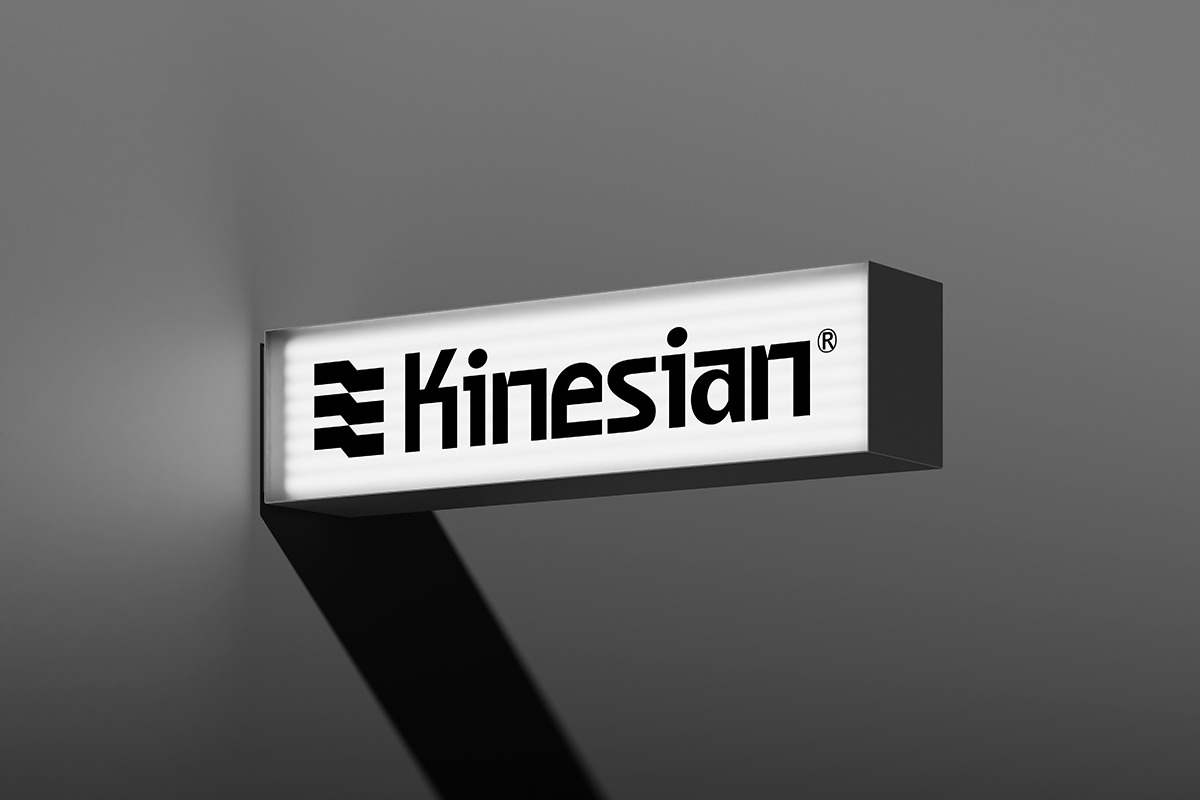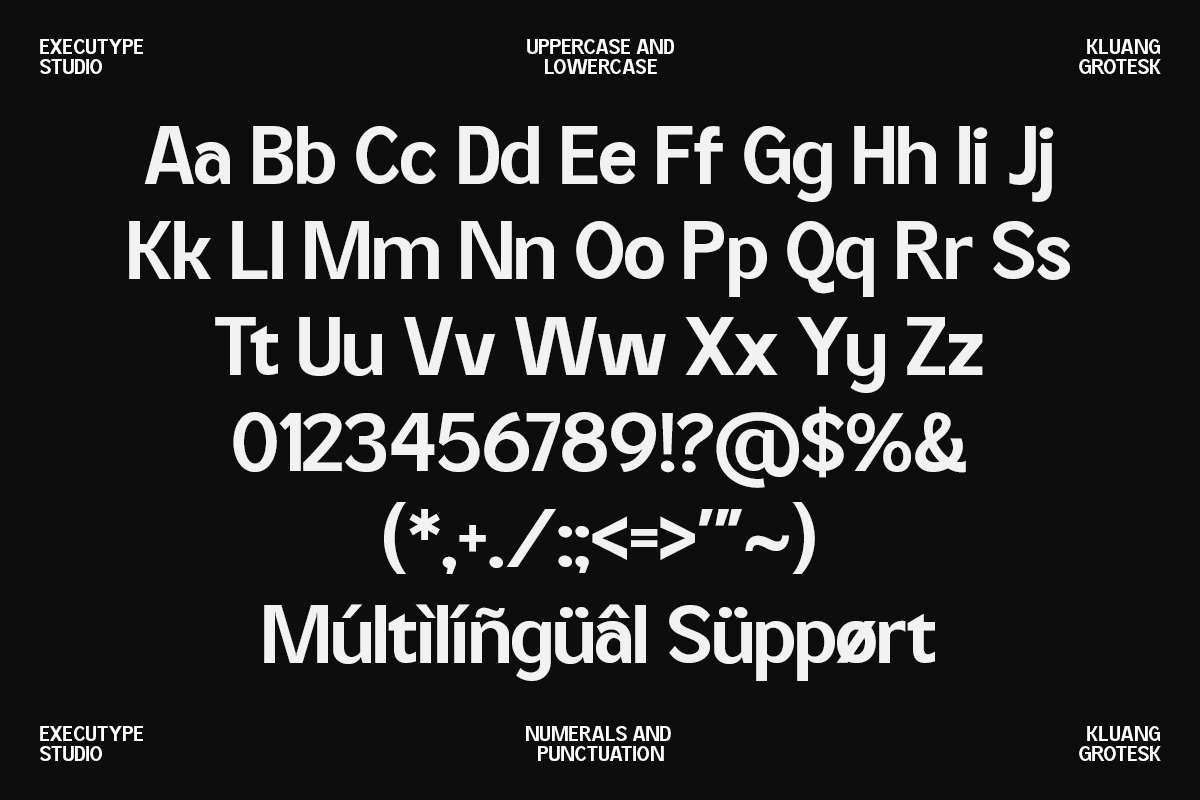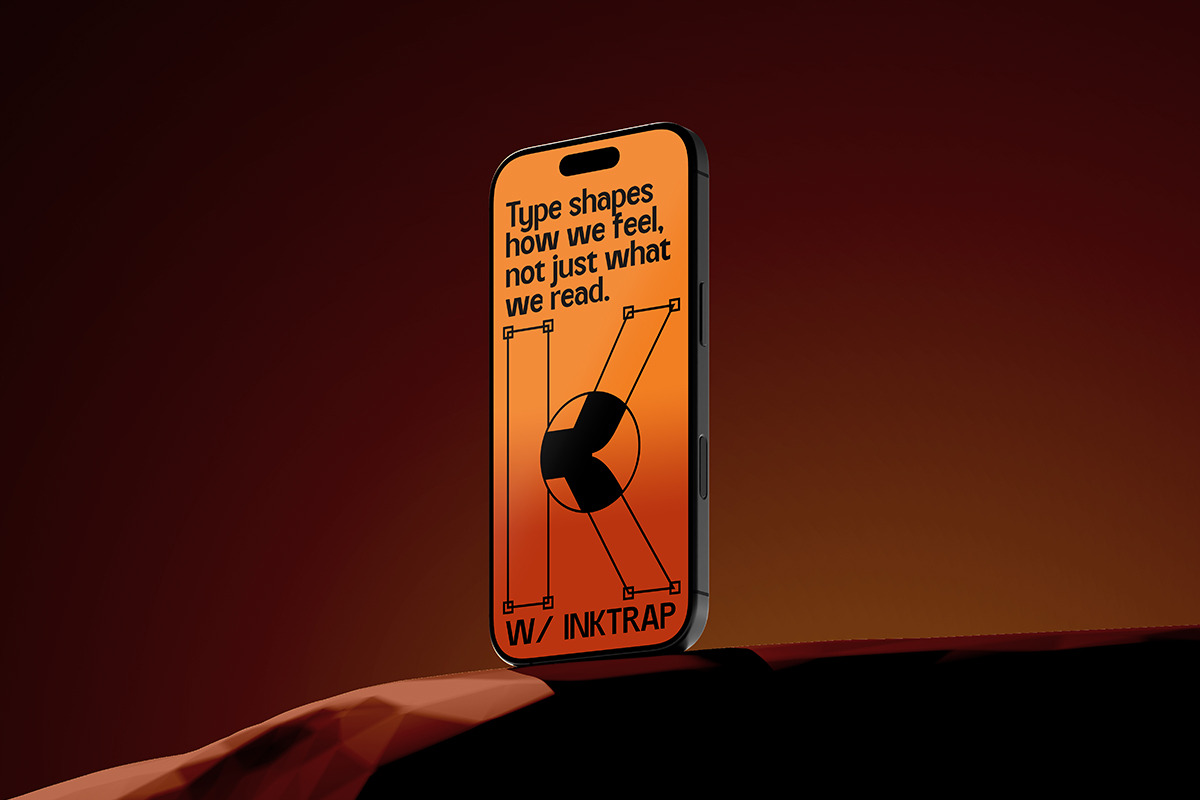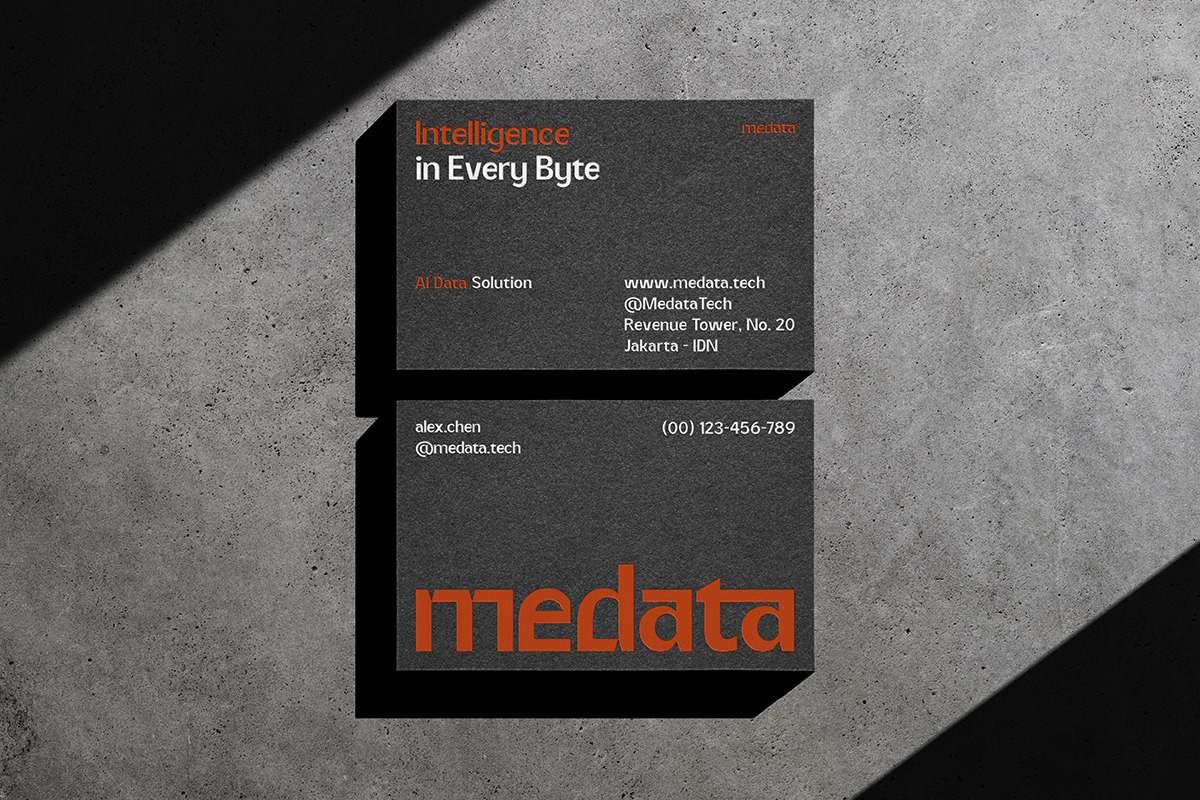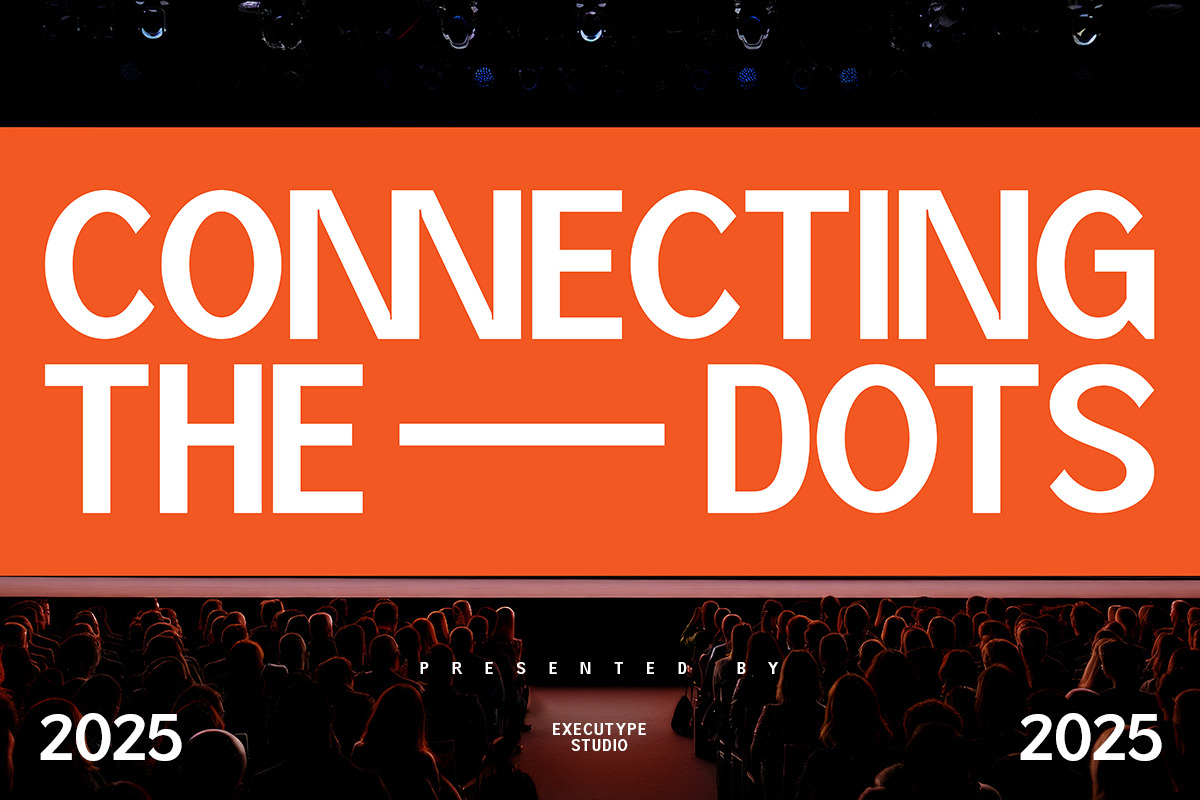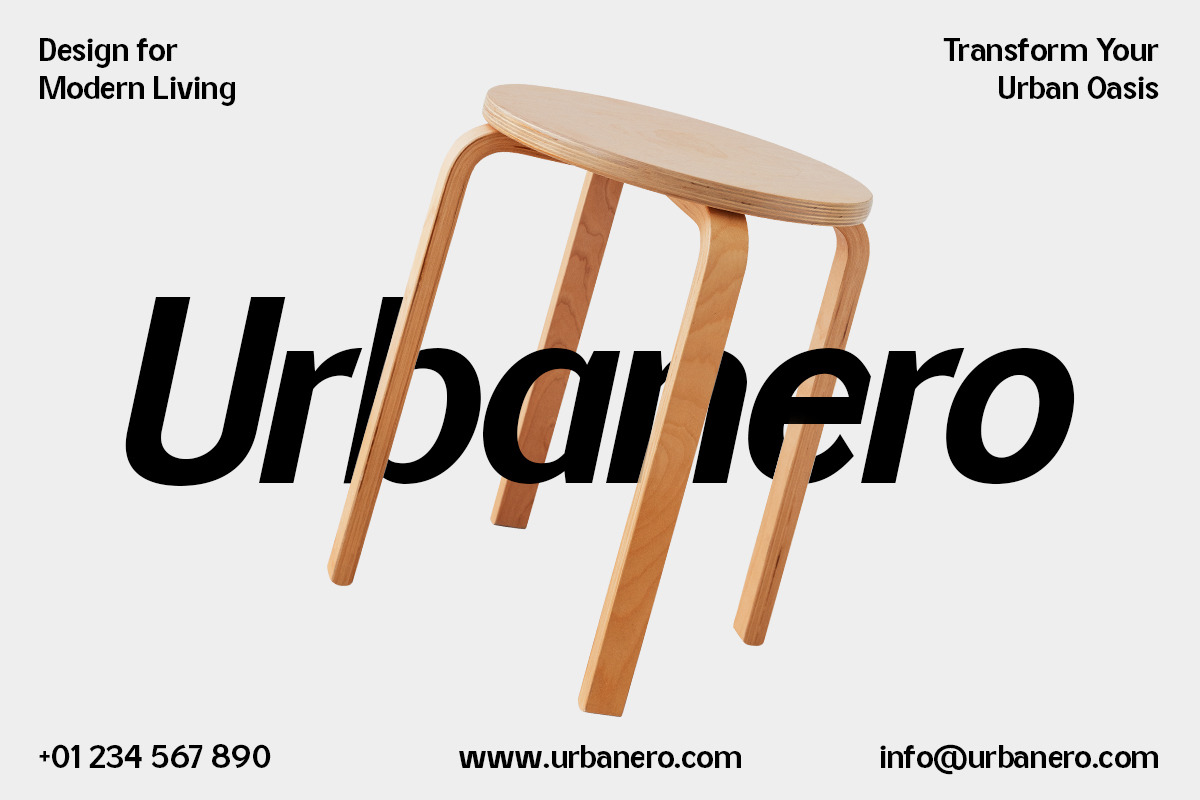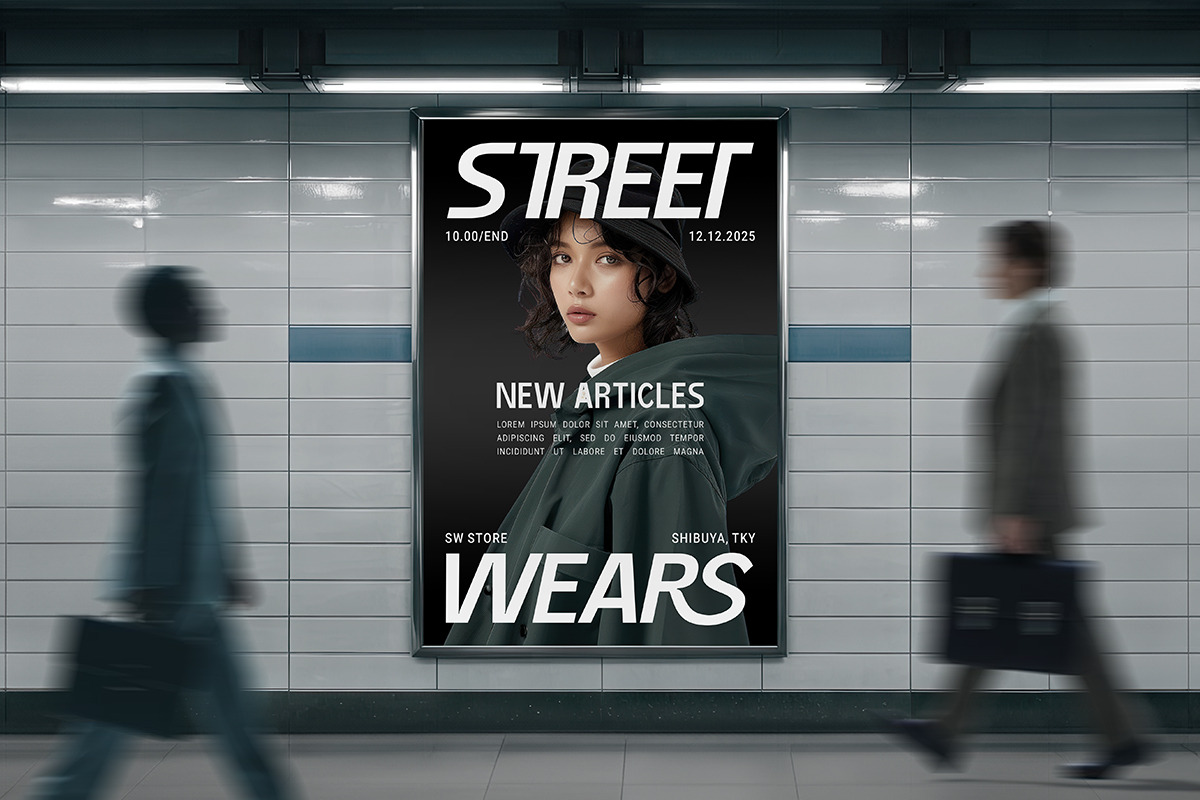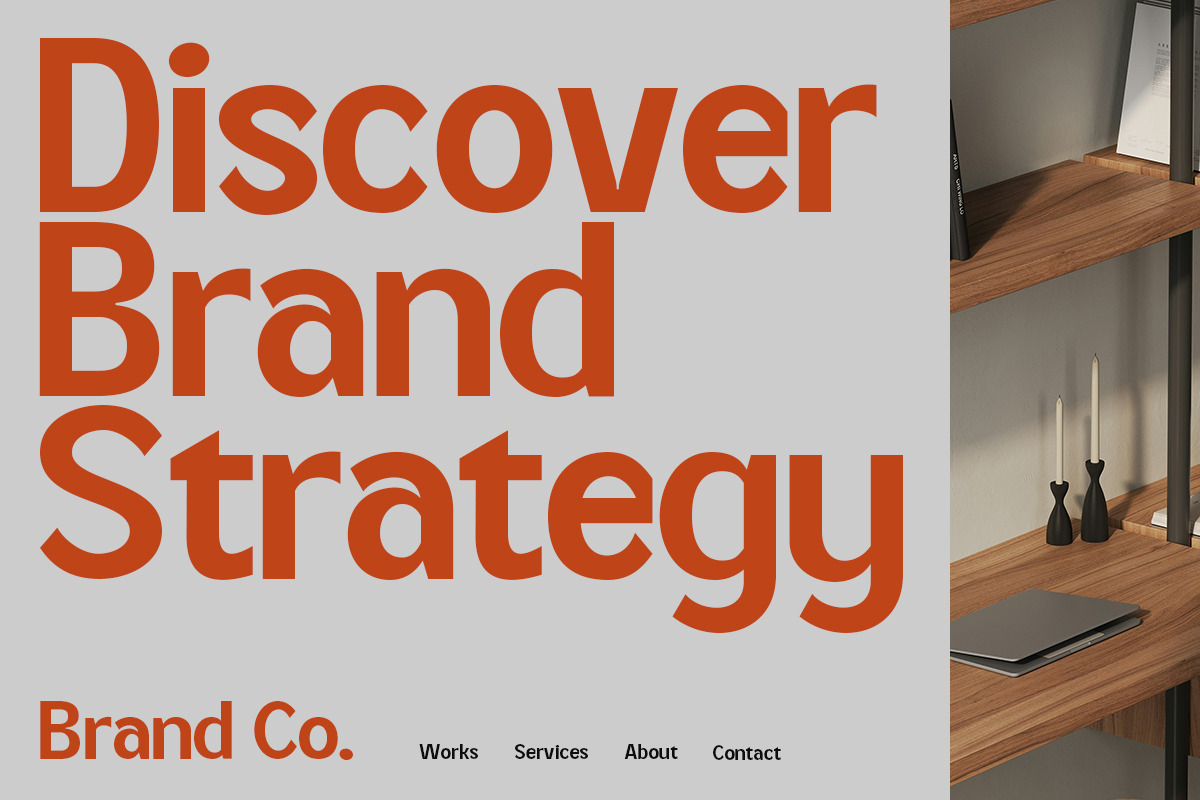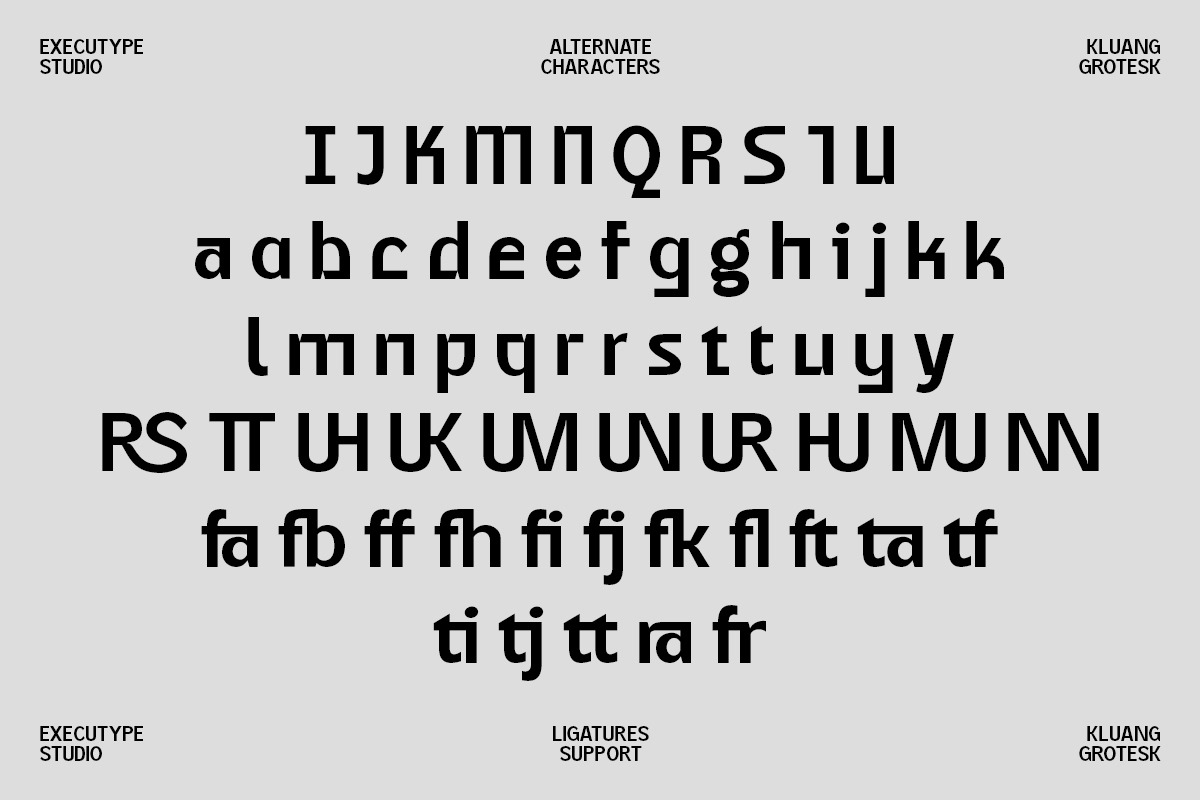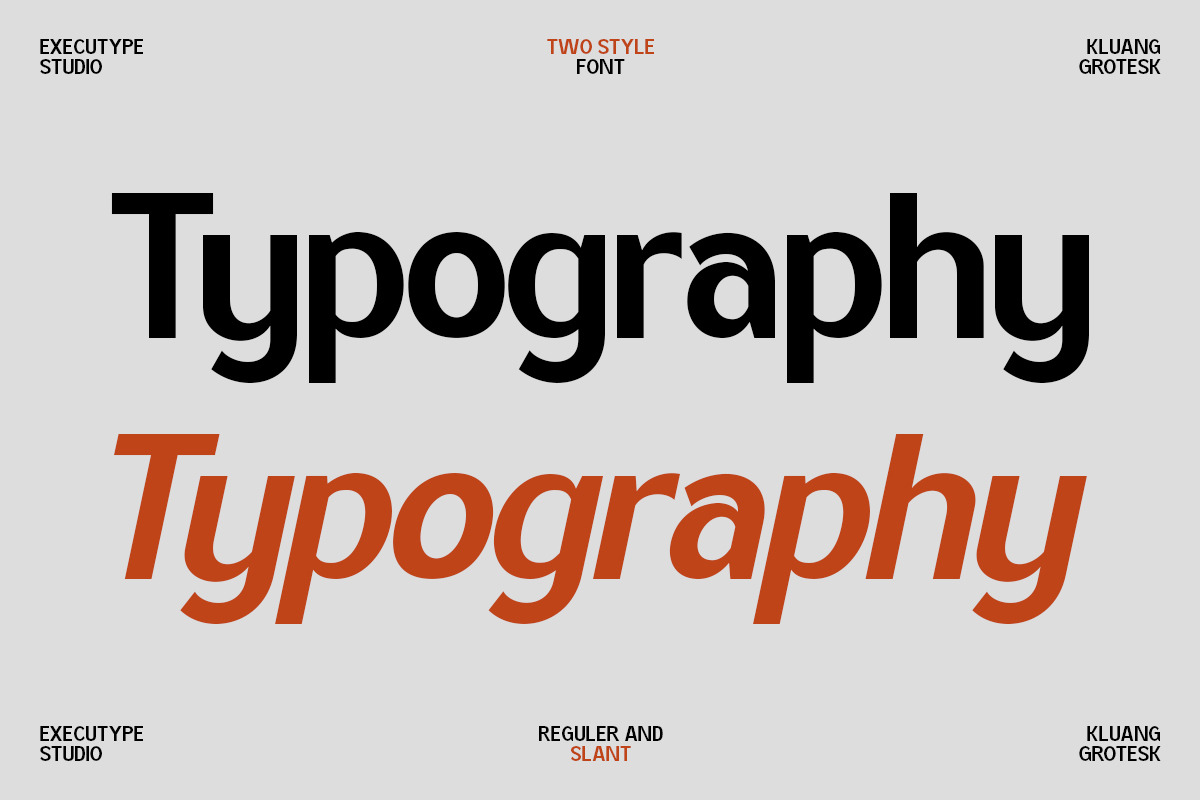
Kluang - Modern Sans Branding
Kluang Grotesk is a contemporary sans that offers a straightforward interpretation of the English humanist sans, gently blending rigid tones over a warm structure. This simple and carefully crafted typeface, with traits flirting with geometry, becomes a powerful workhorse. Its versatility makes it ideal for both paragraphs and bigger typesettings, a great choice for branding, signage, editorial, and more.
Kluang Grotesk:
- A full set of uppercase and lowercase
- Multilingual language support
- OpenType Features